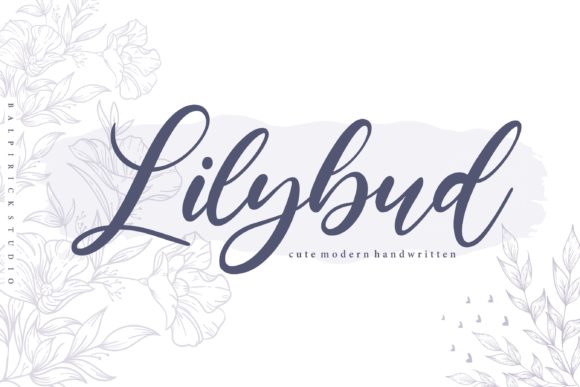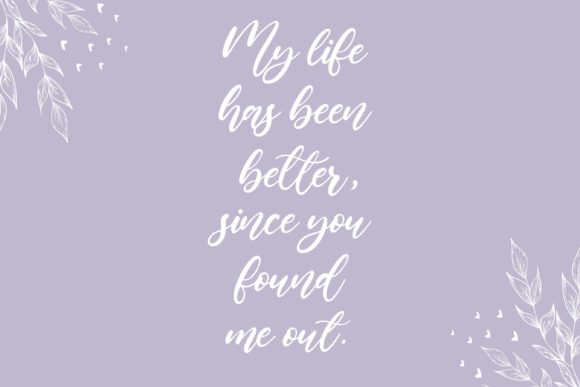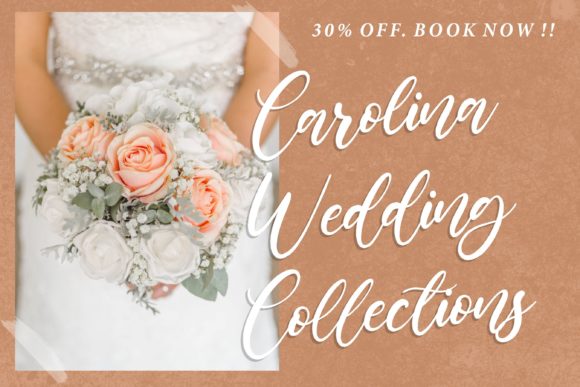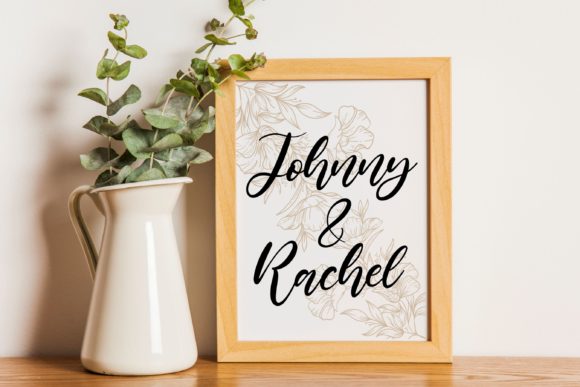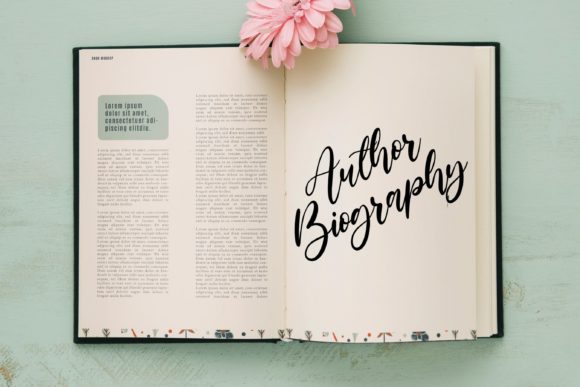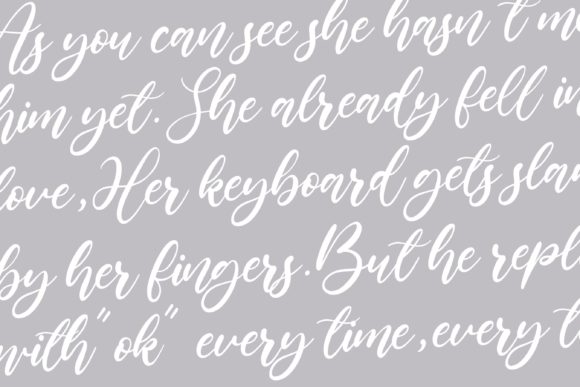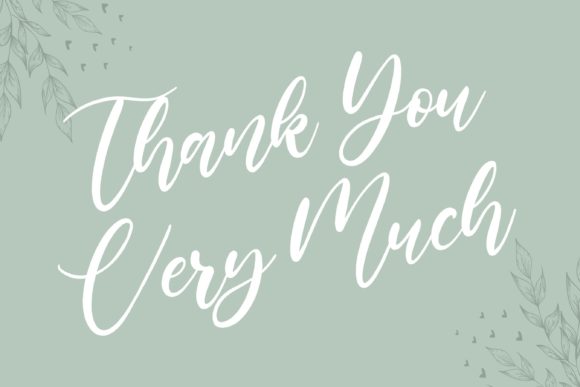
Lilybud Font
About Lilybud Font
Lilybud is a sweet and flowing handwritten font. Created with the help of a beautiful brush pen, Lilybud is masterfully designed to become a true favorite.